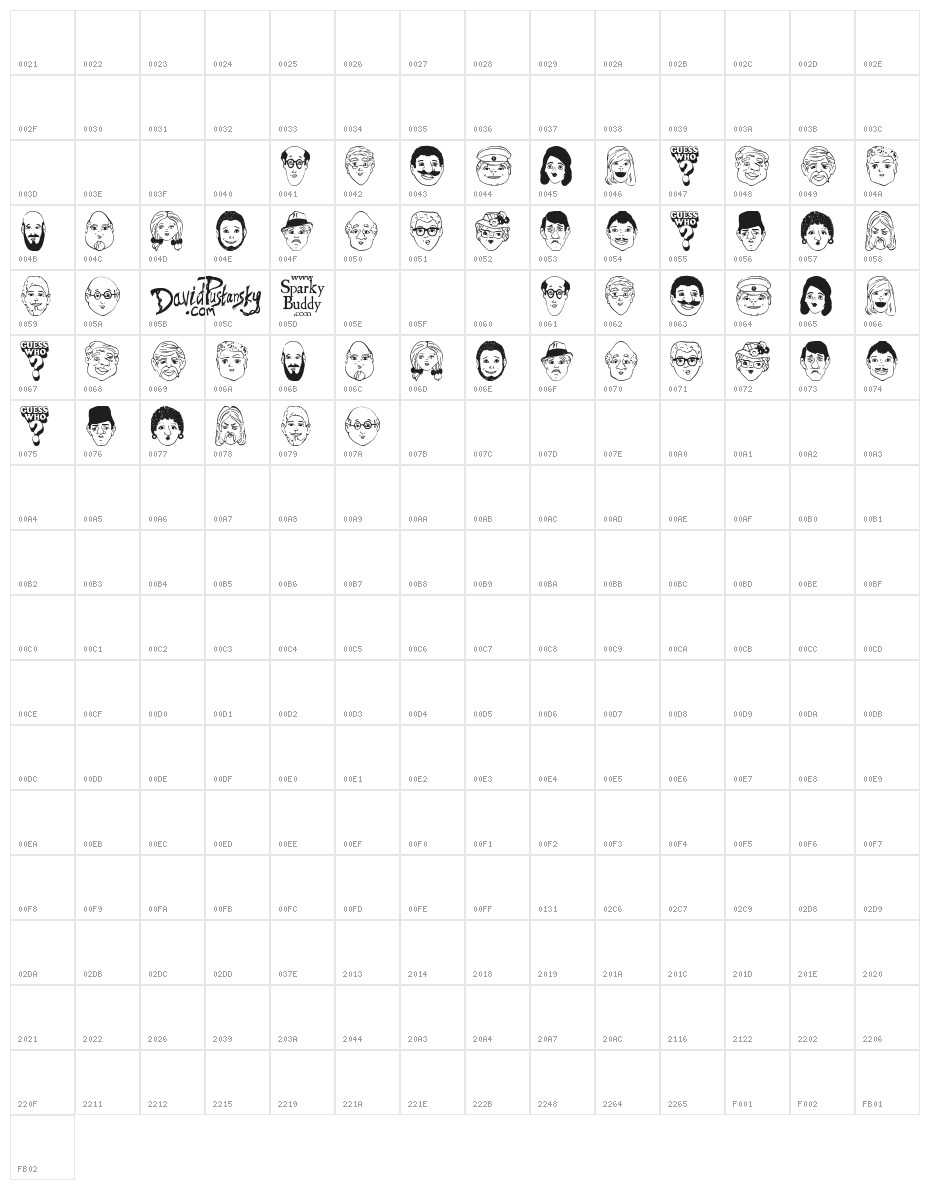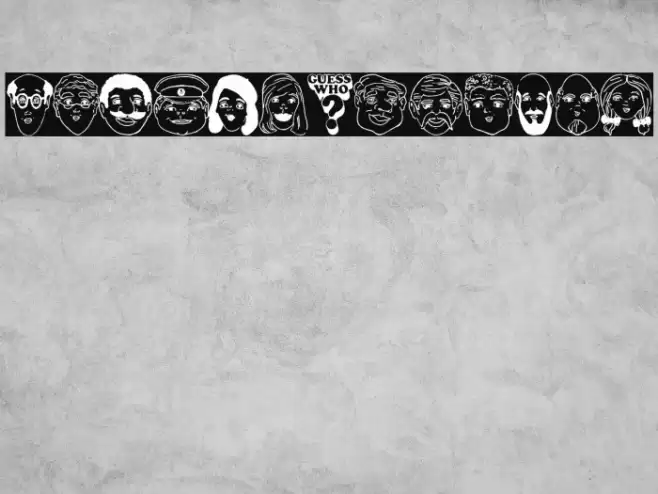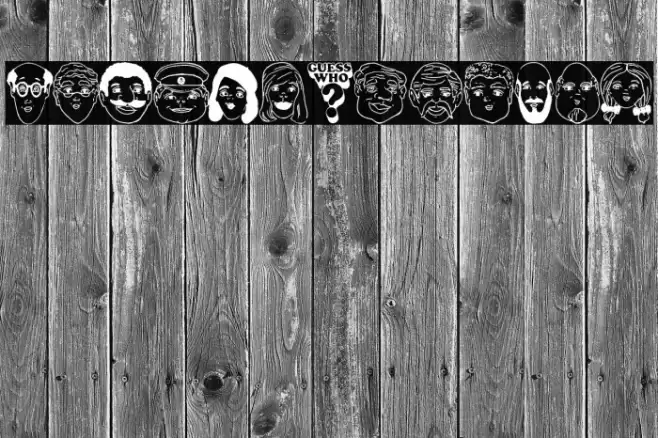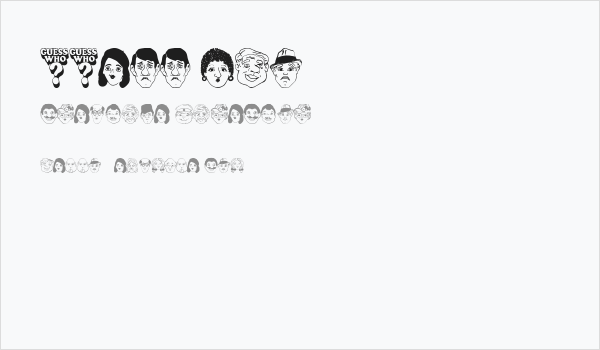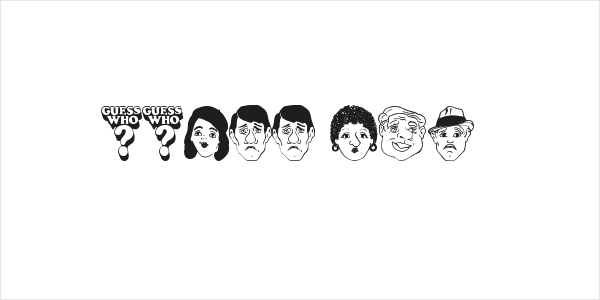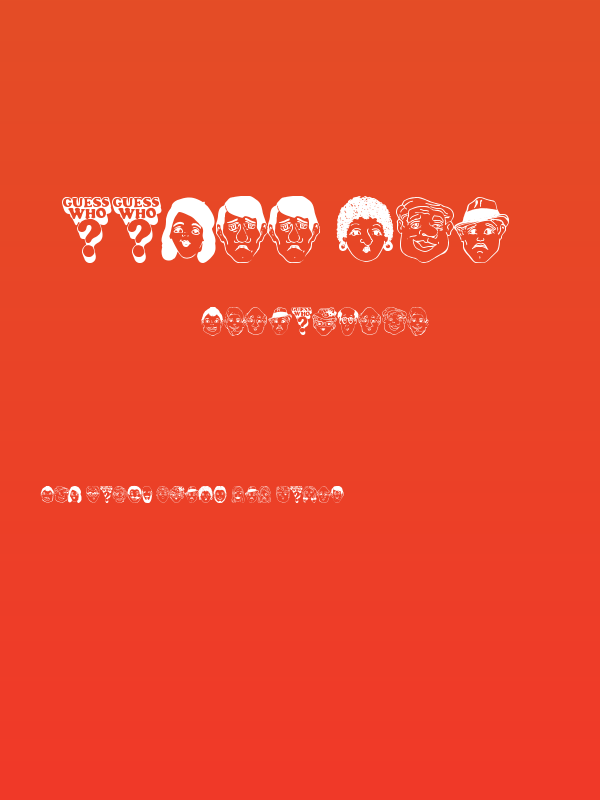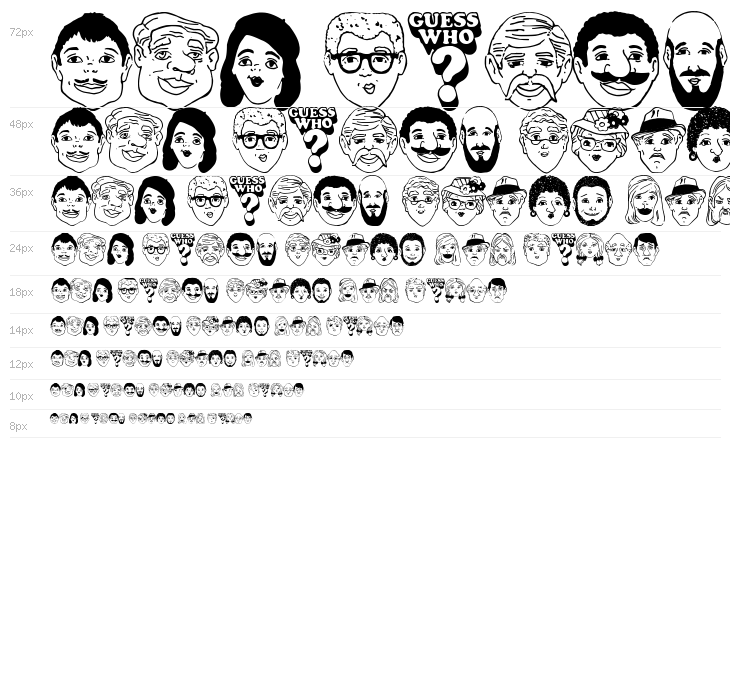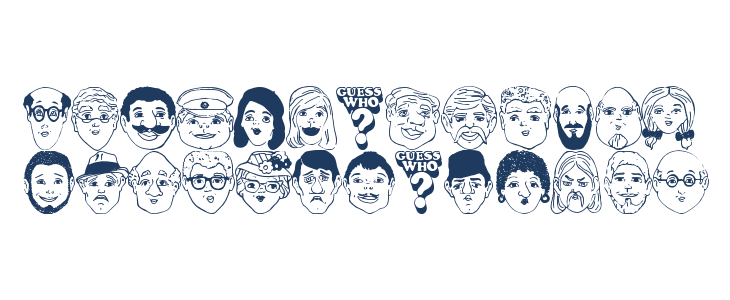
Guess Who? Font
Guess Who? Description
A playful and decorative font composed of illustrated caricature faces for each letter and number, with special characters rendered as 'GUESS WHO?' in a bold, comic style. The characters are highly detailed, each with unique facial features, giving the font a whimsical and engaging appearance.
| Overall Style | Playful, Whimsical, Decorative |
| Use Case | Logos, Headlines, Posters, Themed Graphics |
| Proposed Projects | Board games, children's books, party invitations, novelty posters, themed branding. |